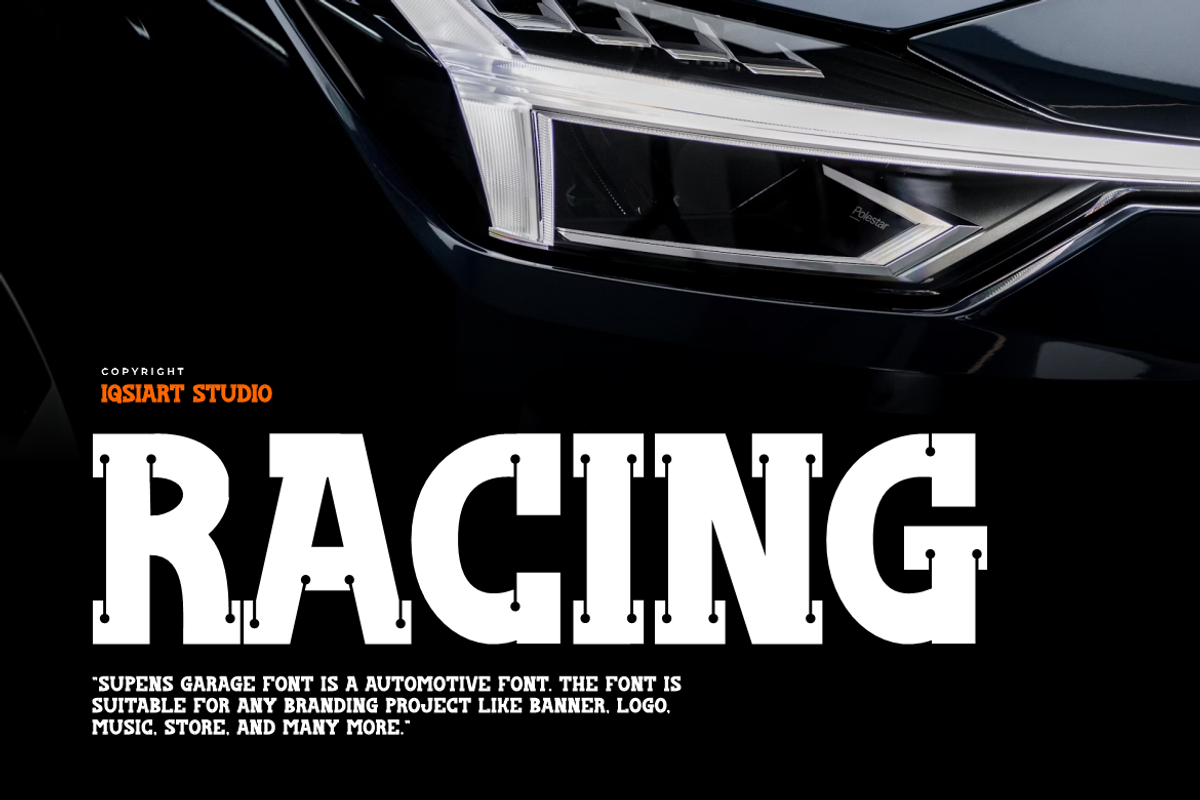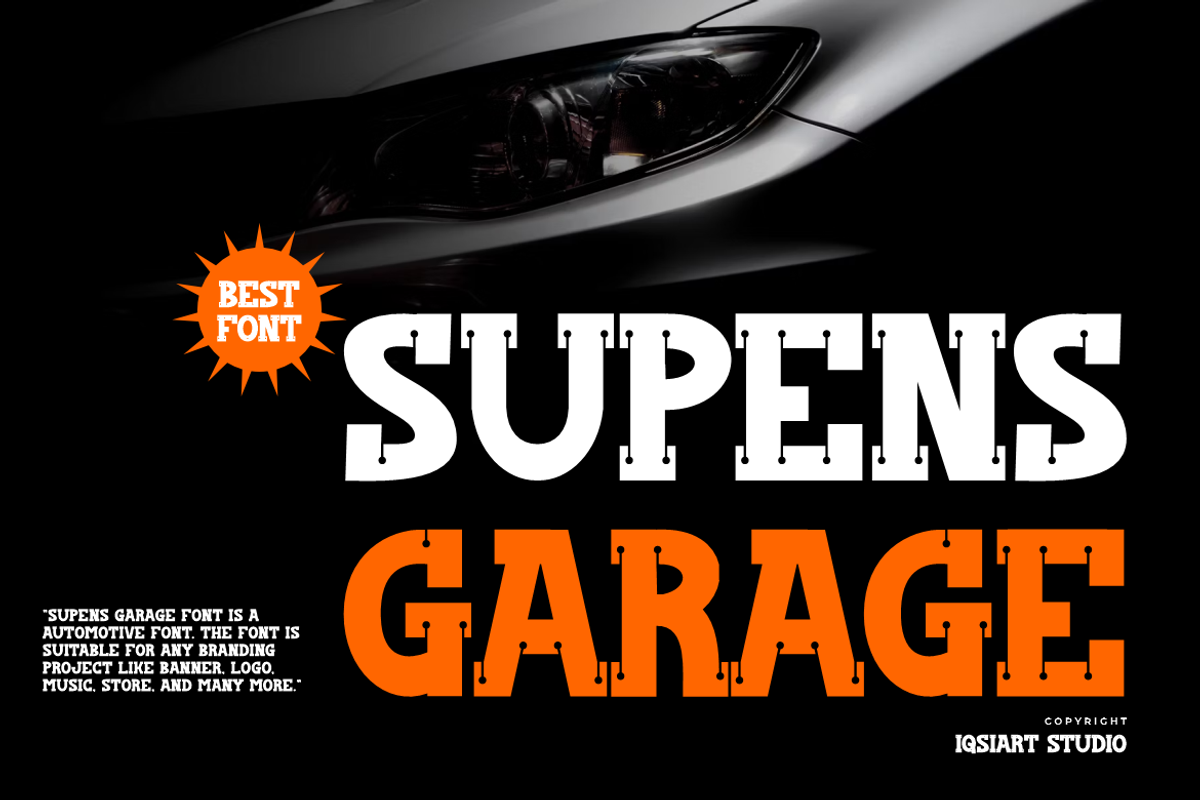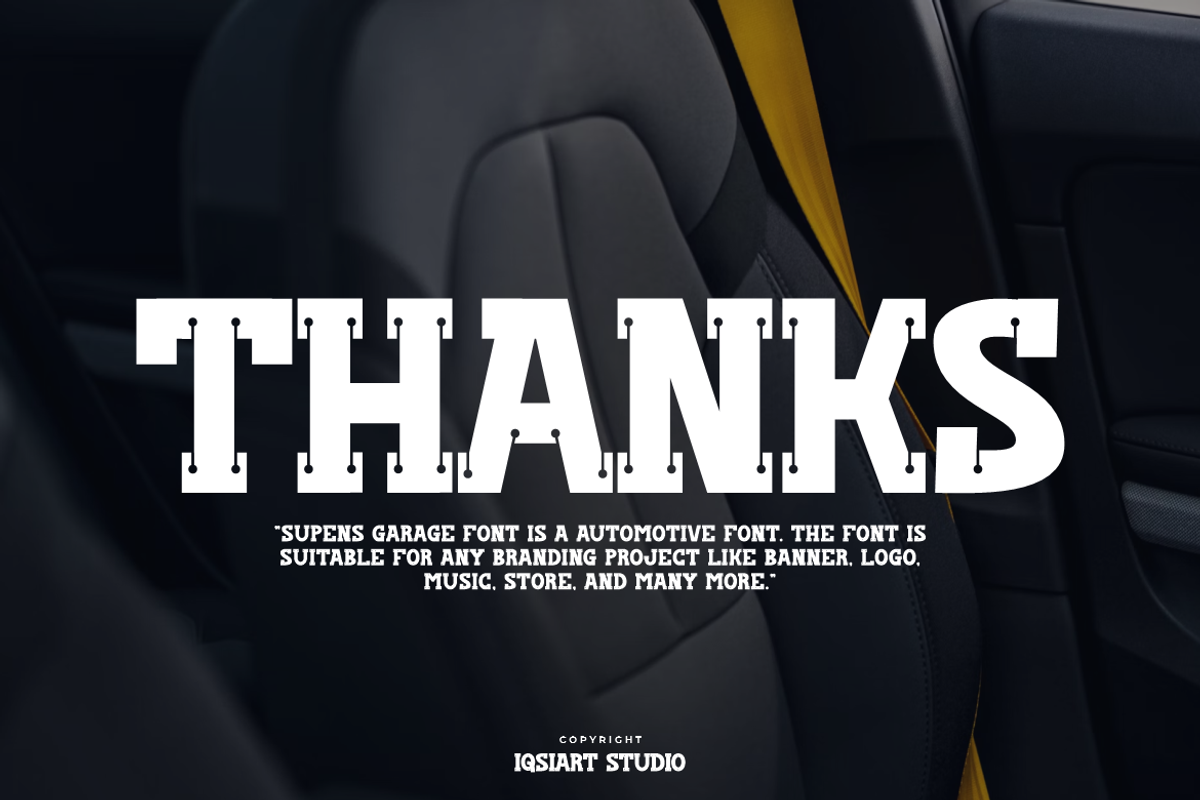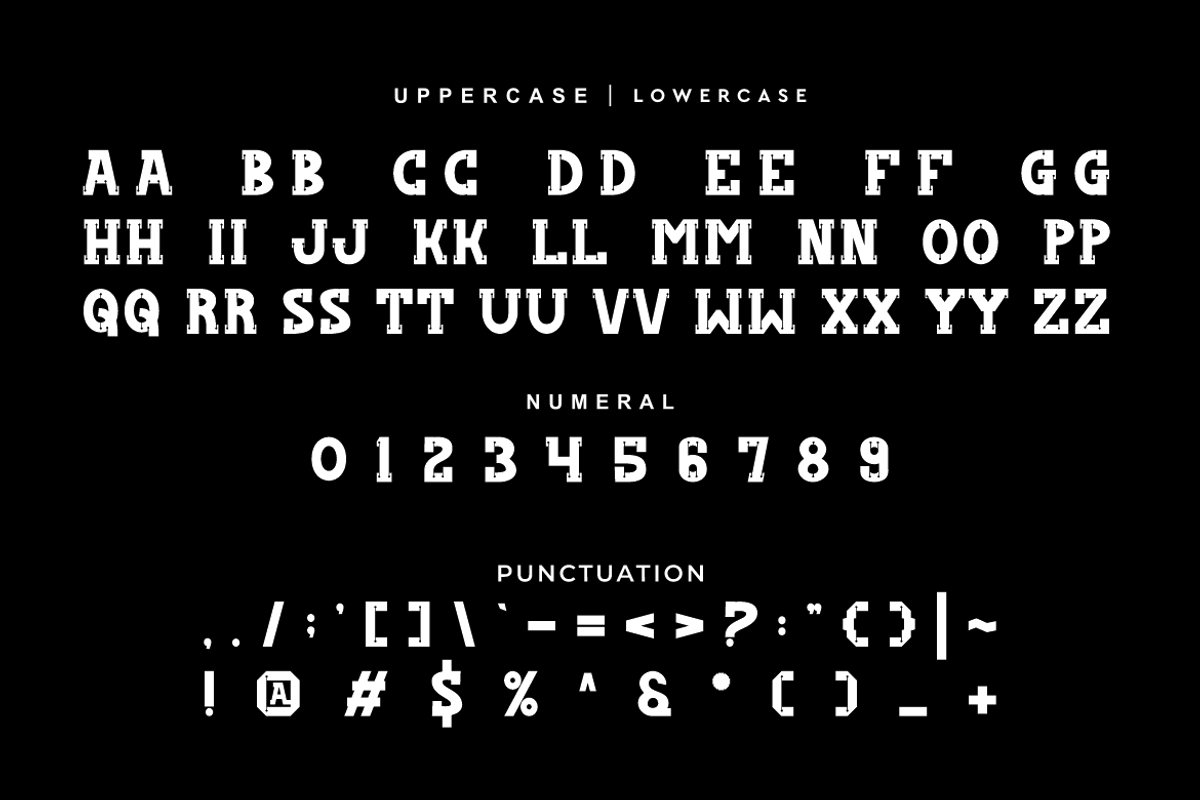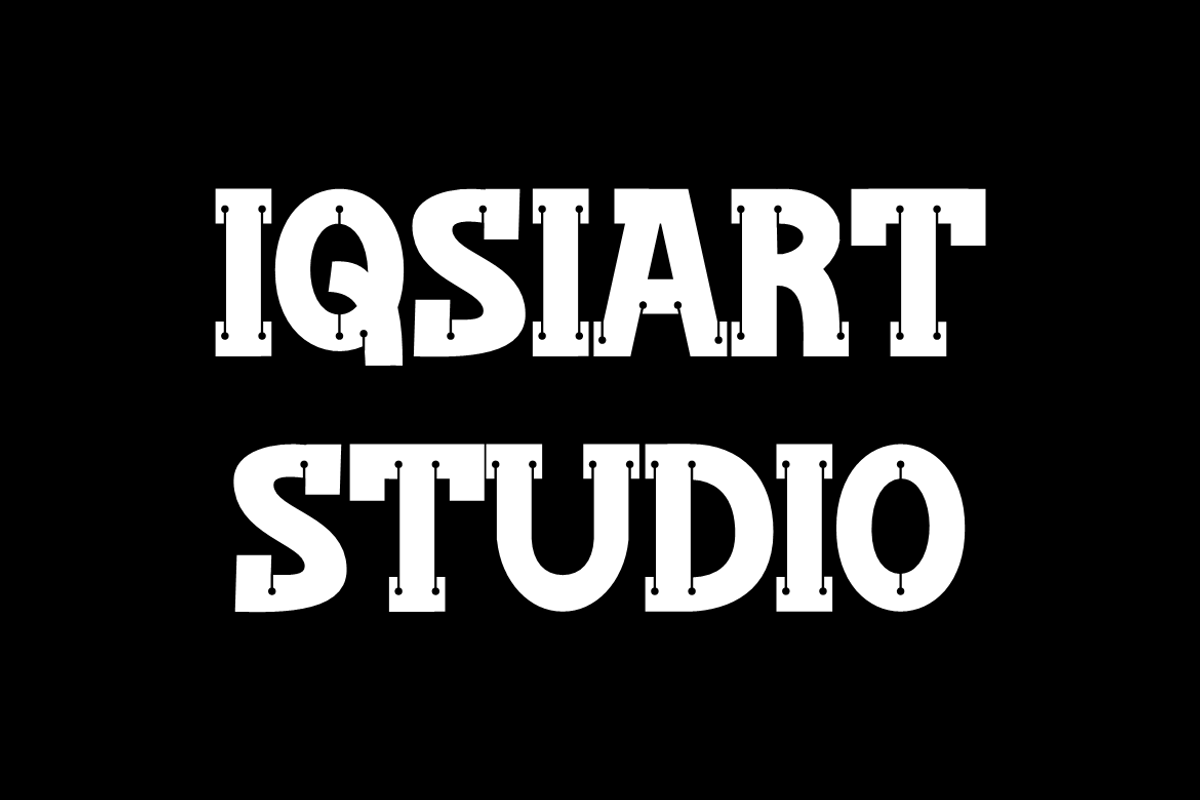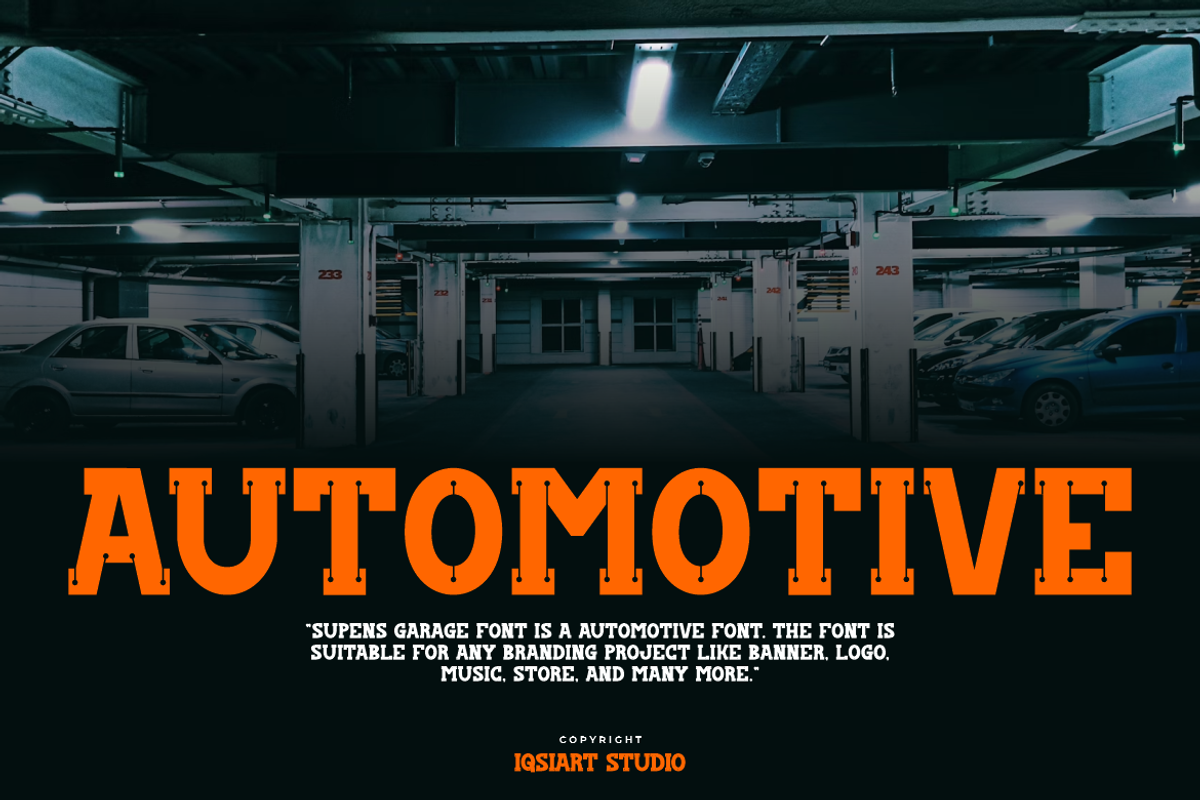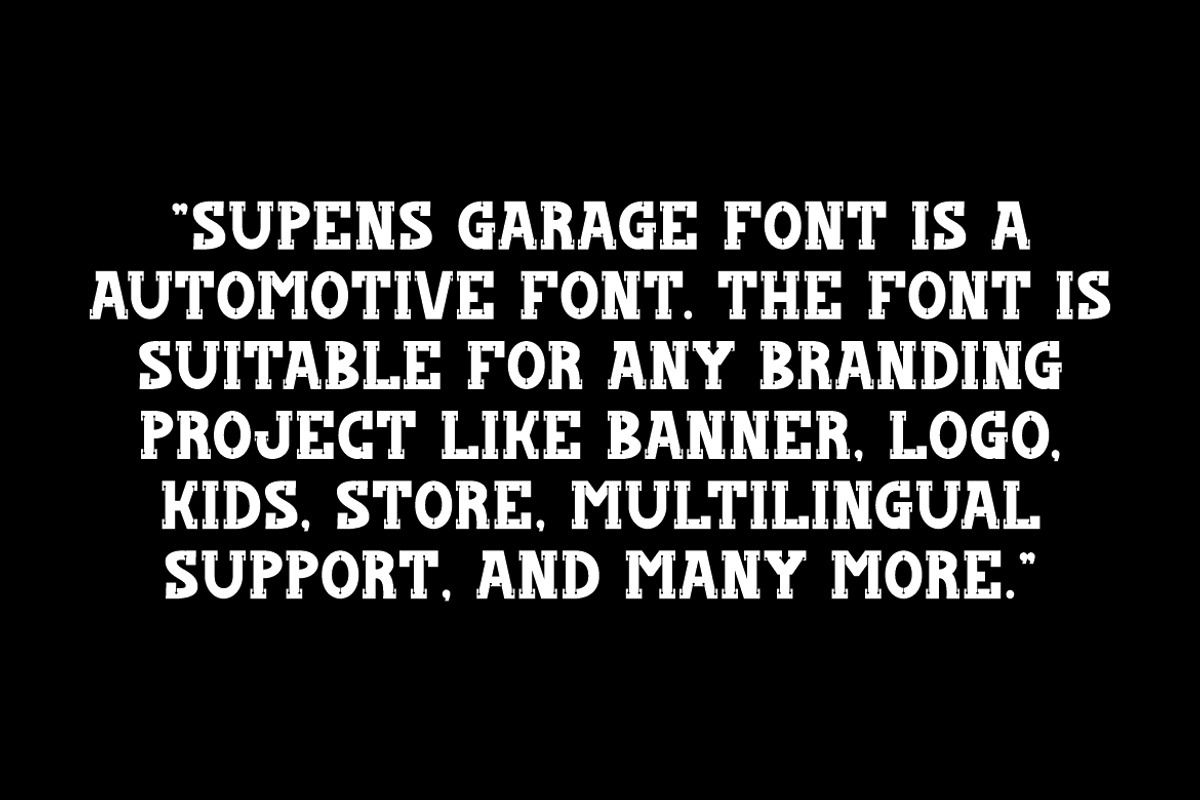
Supens Garage - Automotive Font
Supens Garage Font is a best and authentic display font. This font can be used for your various needs. We provide various themes and font styles. visit our profile to get a wide variety of themes and different font styles you need.